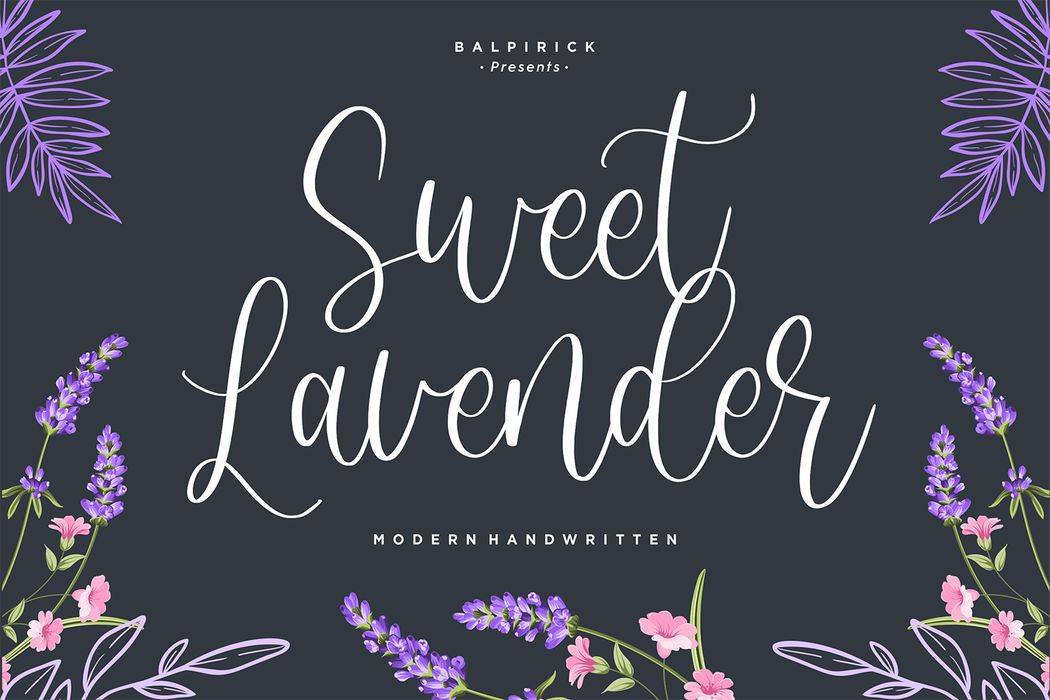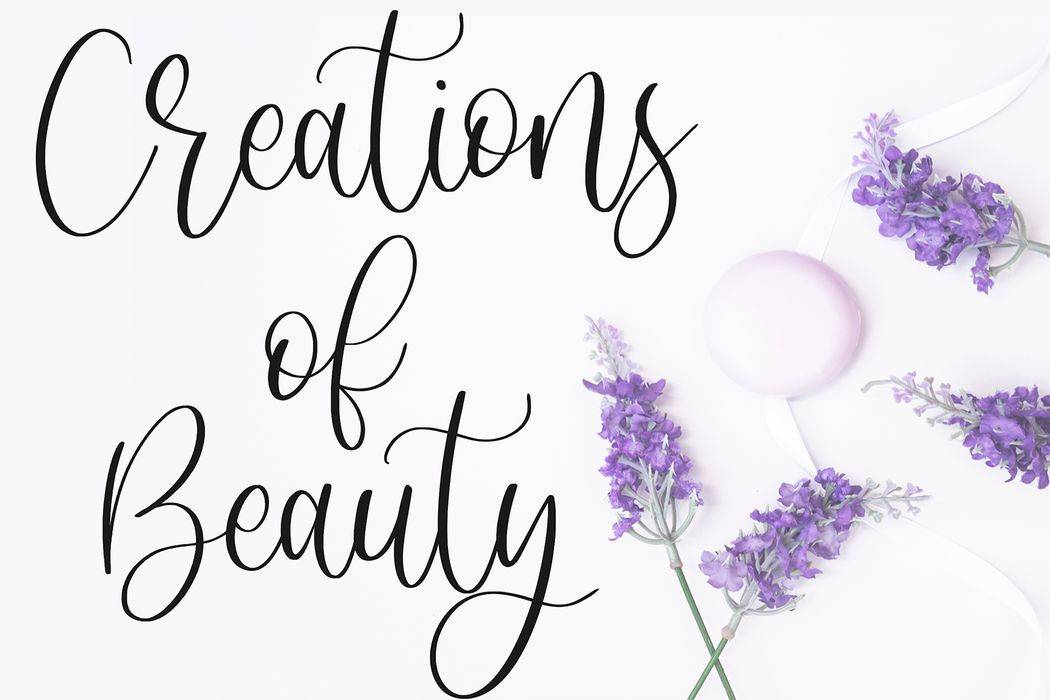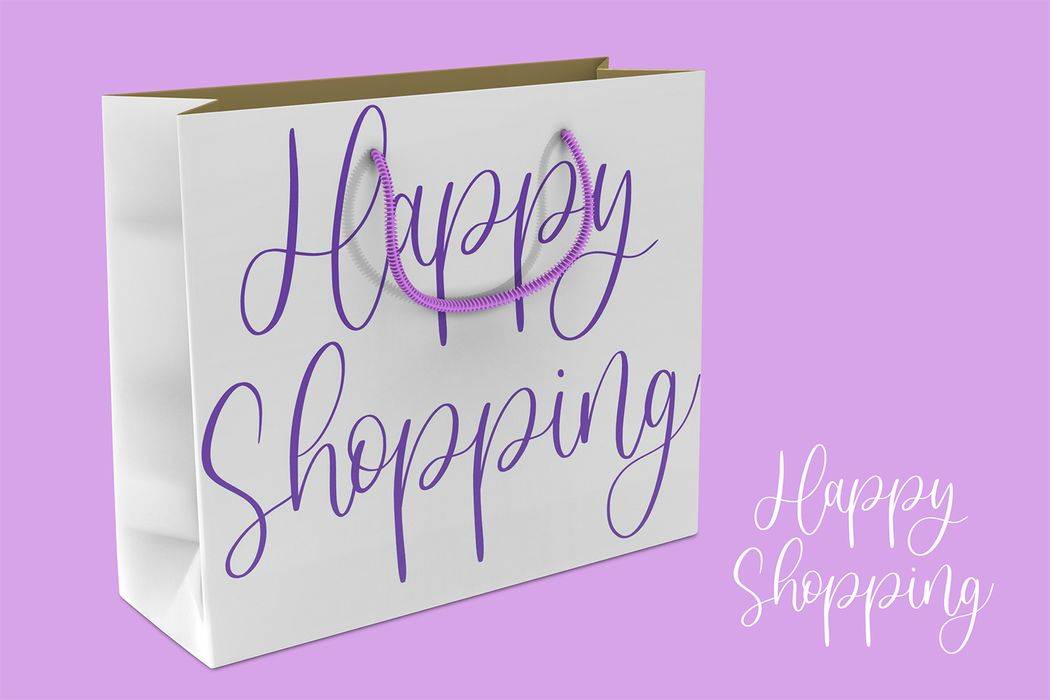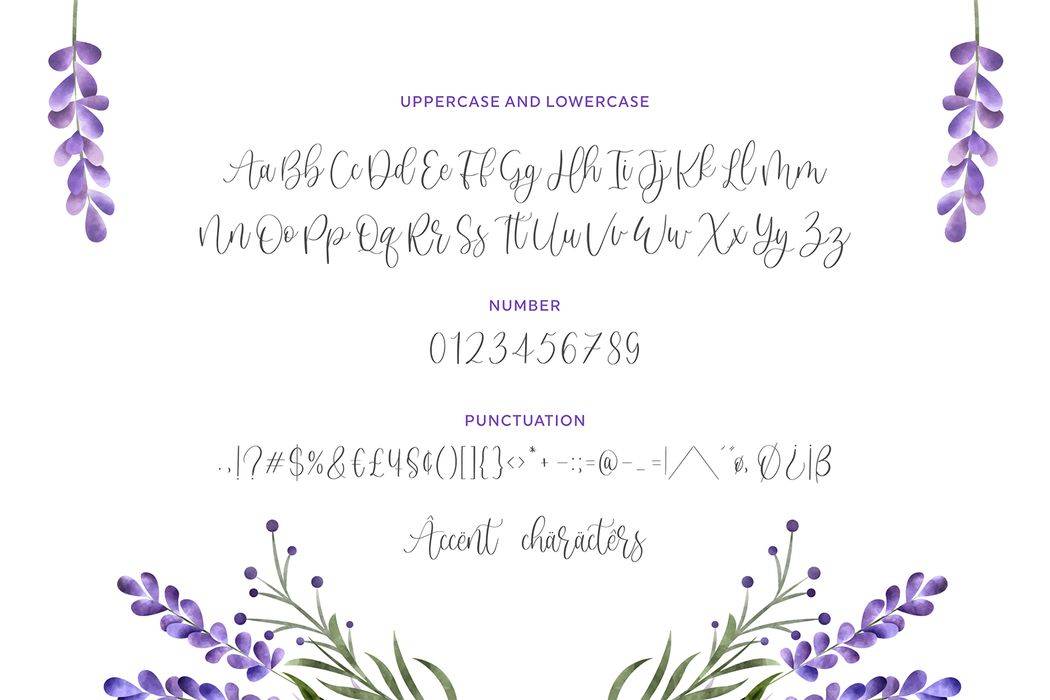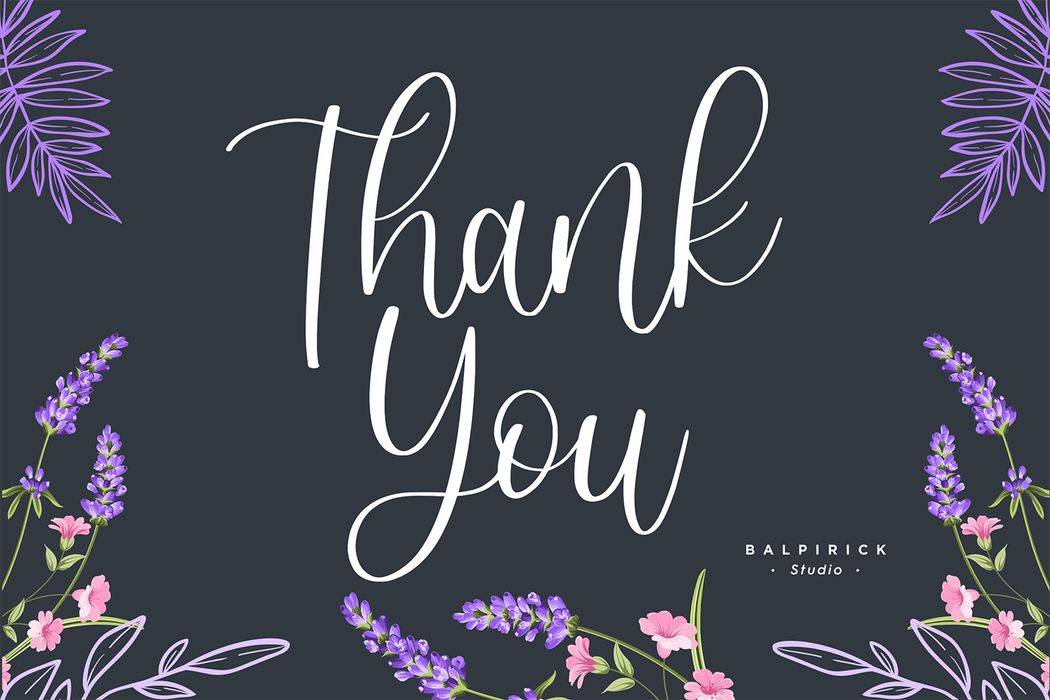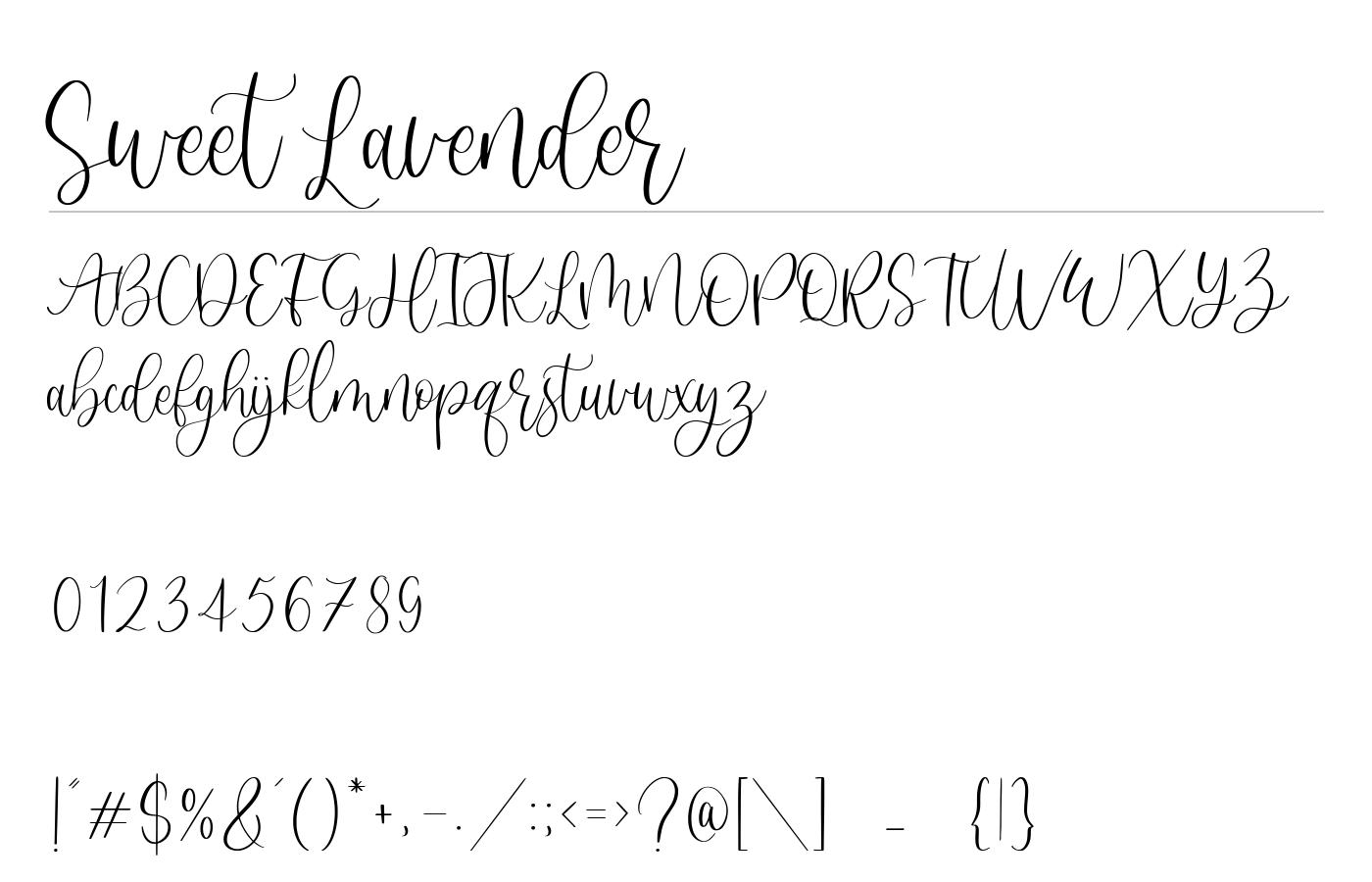
Sweet Lavender is a delicate, elegant script font with thin, flowing strokes and graceful curves that evoke a handwritten, calligraphic feel. Its light weight and tall x-height make it perfect for romantic branding, wedding invitations, and feminine packaging, adding a soft, personal touch while maintaining readability and charm. This font works beautifully in designs where a refined, sophisticated yet approachable style is desired.
Sweet Lavender Font
About Sweet Lavender Font
| Font family | Sweet Lavender Font |
| Designer | Balpirick 2020 |